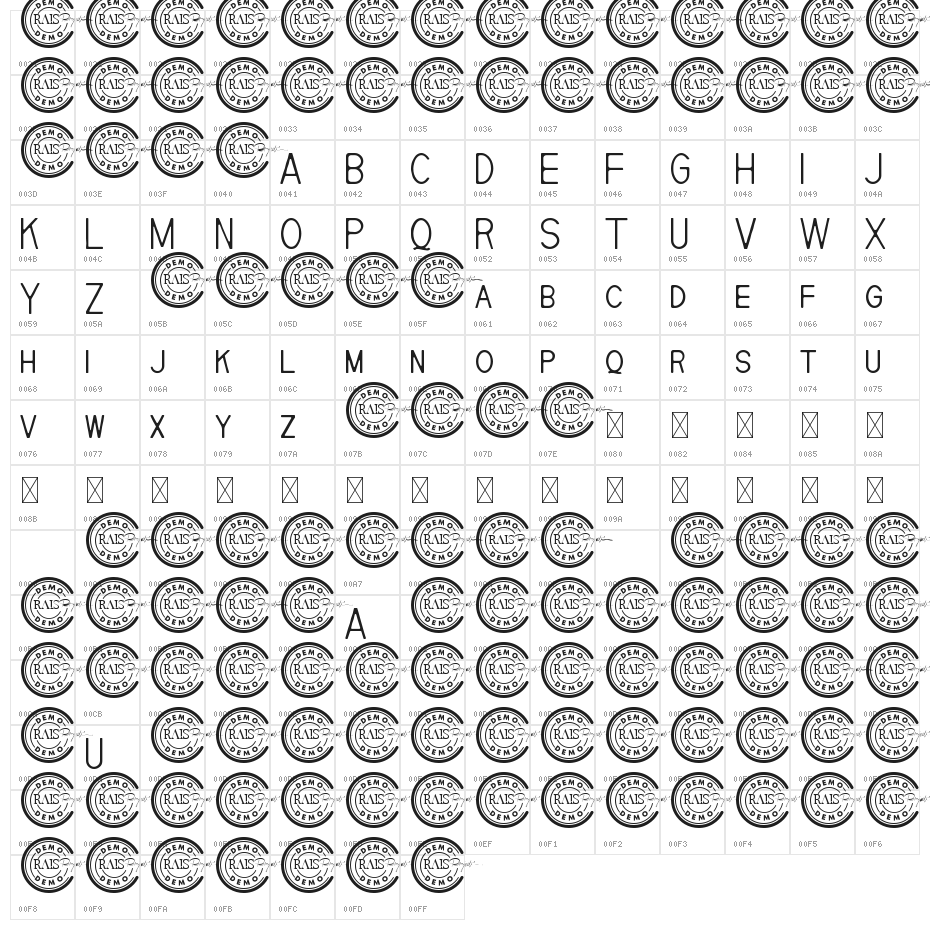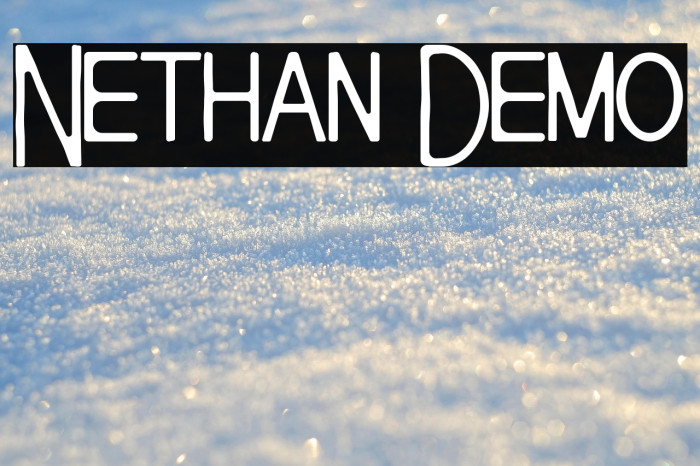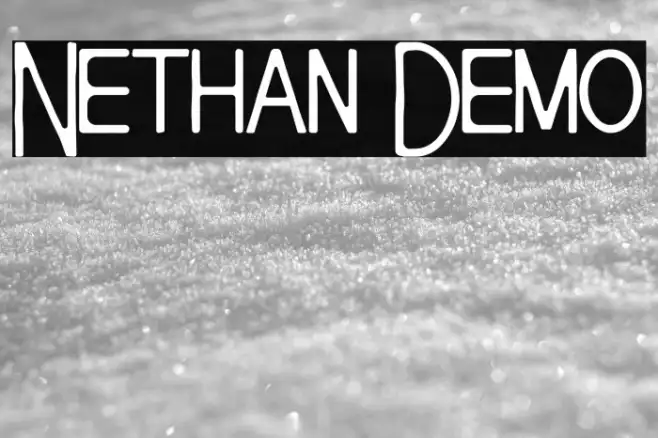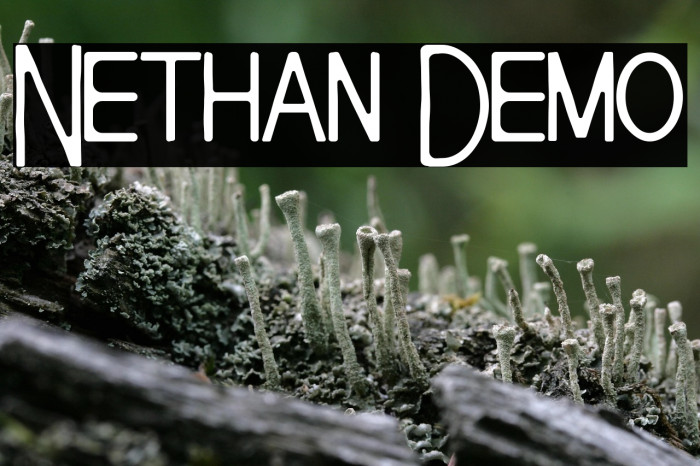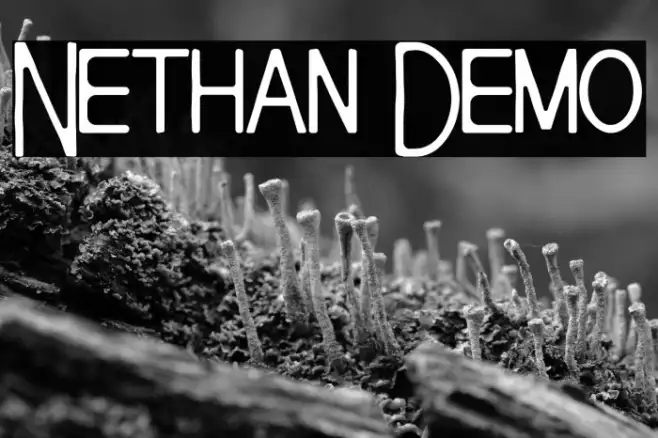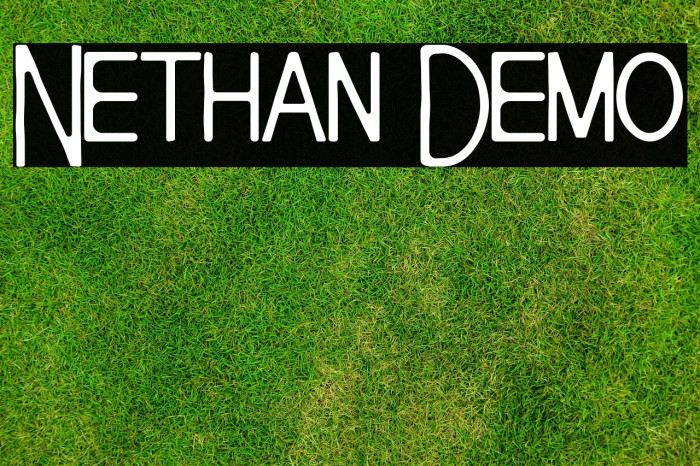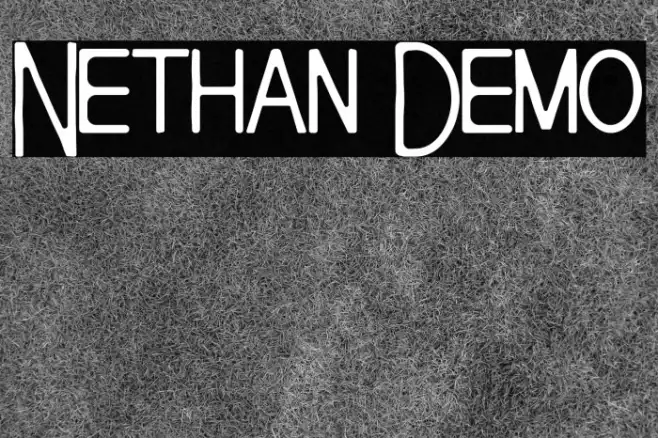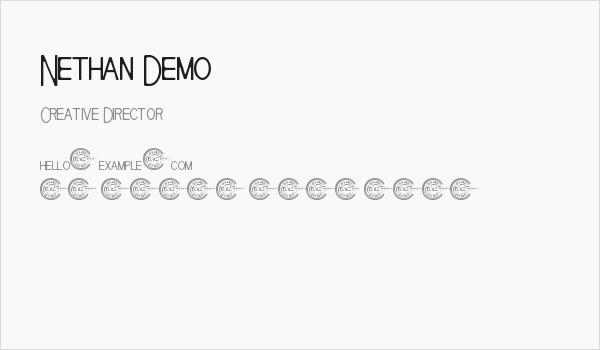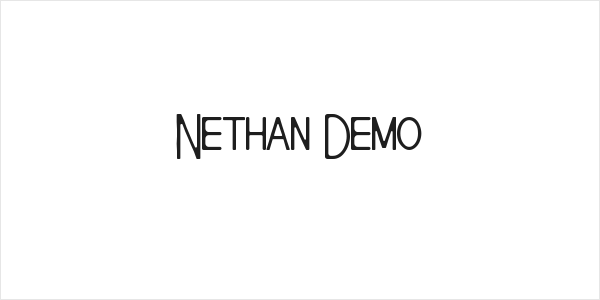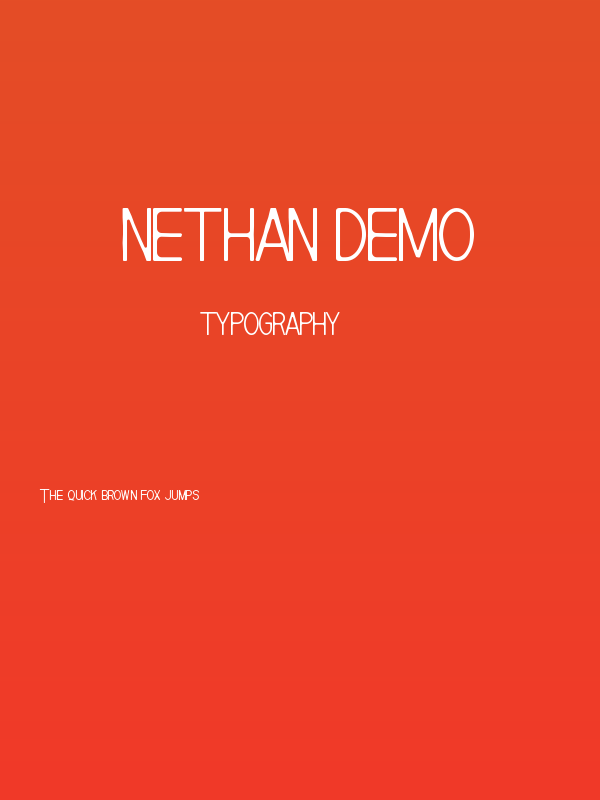
Nethan Demo Font
Nethan Demo Description
This font features a bold and modern design with clean lines and a geometric structure. The uppercase letters are tall and narrow, giving a sleek and contemporary appearance. The consistent stroke width across characters contributes to a uniform and cohesive look. The font's simplicity and clarity make it highly legible, suitable for various design applications. It exudes a sense of professionalism and modernity, making it ideal for branding and advertising. The absence of serifs and the straightforward design emphasize its modern aesthetic, making it versatile for both digital and print media.
| Proposed Projects | Ideal for branding, advertising, digital media, and print materials. |